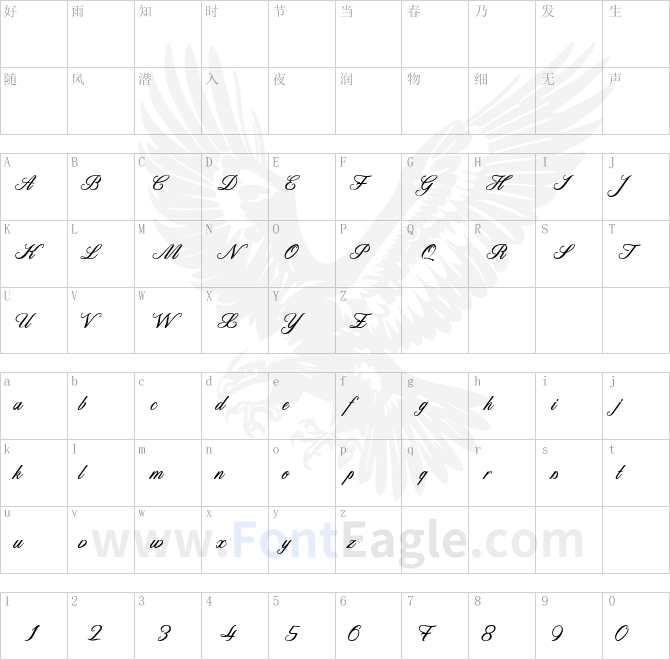
- Font name:Catherine de Beaumont
- Font Subfamily ID:Maelle.K: Catherine de Beaumont : 2016
- Font Full Name:CatherinedeBeaumont
- Postscript:CatherinedeBeaumont